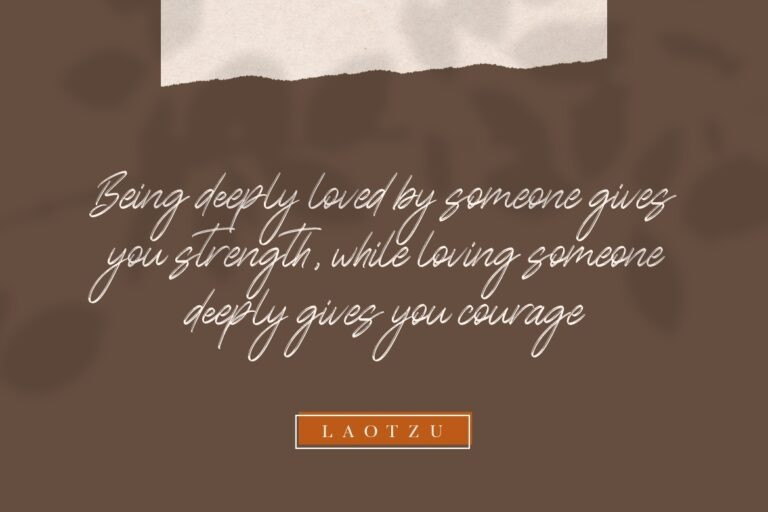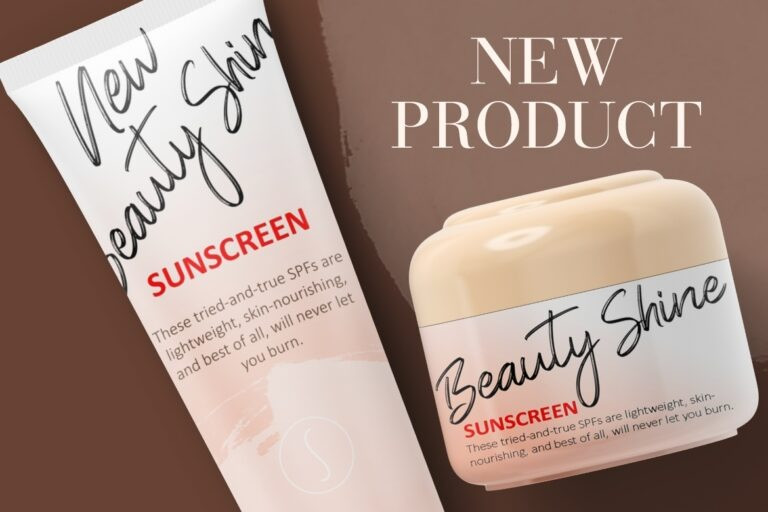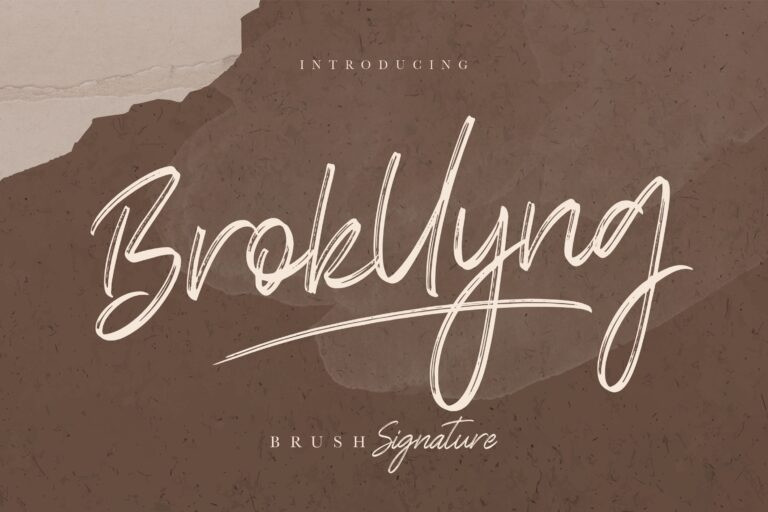
Brokllyng Brush Typeface
Brokllyng a brush signature font with scratch natural movement will perfect for your creative project.
Brokllyng would perfect for photography, watermark, social media posts, advertisements, logos & branding, invitation, product designs, label, stationery, wedding designs, product packaging, special events or anything that need handwriting taste.